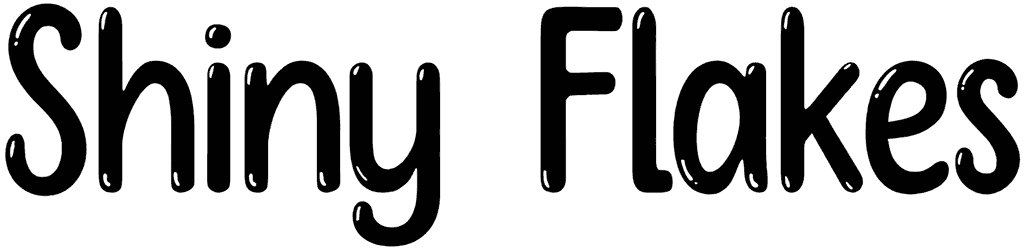
Shiny Flakes Font
I bet a happy design with a playful face can be great at communicating with viewers. Shiny Flakes is a cartoon font with a smooth letter face and a shining effect. For many designs, such as books, posters, illustrations, or more of the same, this fancy font can bear a cute vibe even without the support of numbers.